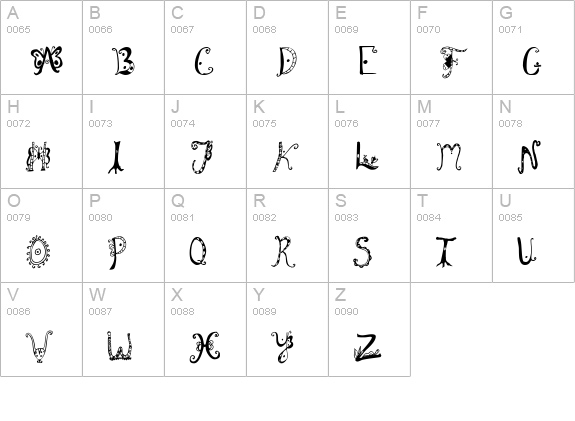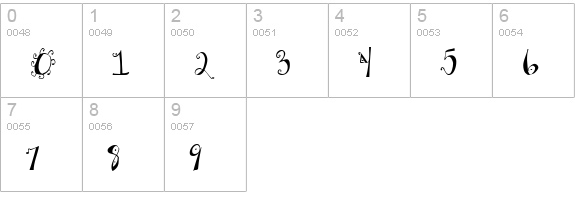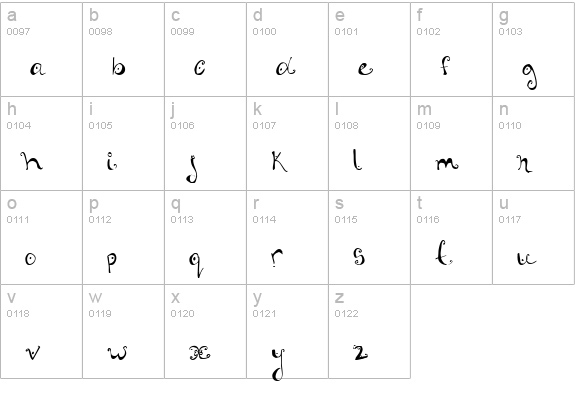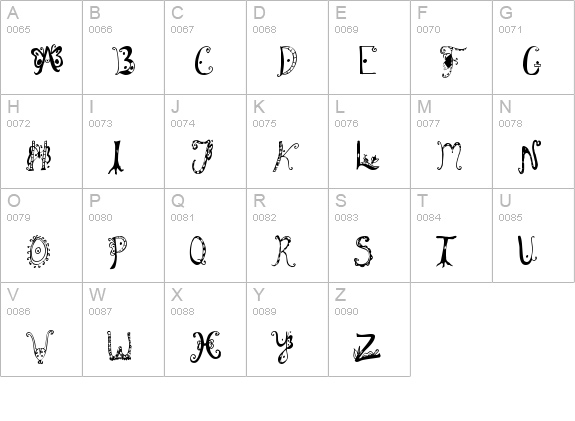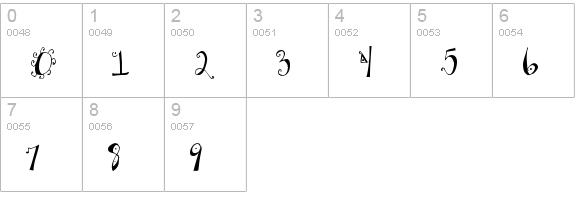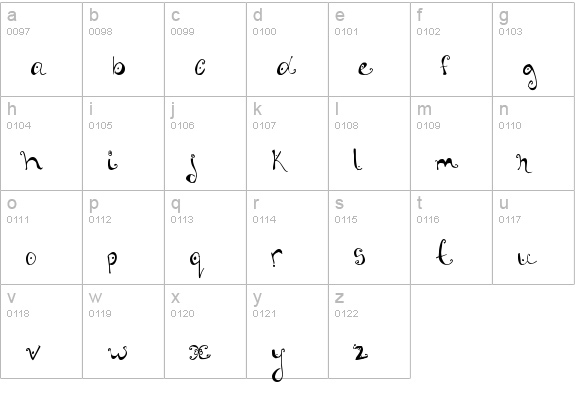
Fannys Treehouse Font Details
Fannys Treehouse font is a whimsical and charming typeface that brings a touch of nature-inspired creativity to your designs. With its playful and organic letterforms, this font exudes a sense of warmth and friendliness, making it perfect for projects that aim to convey a sense of fun and imagination. The Fannys Treehouse font is freely available to download at FontsMarket.com, allowing you to easily incorporate its unique character into your designs without any cost. Whether you're working on invitations, greeting cards, posters, or any other creative project, this font is sure to add a touch of magic and personality to your work. Embrace the playful spirit of Fannys Treehouse font and let your creativity soar!